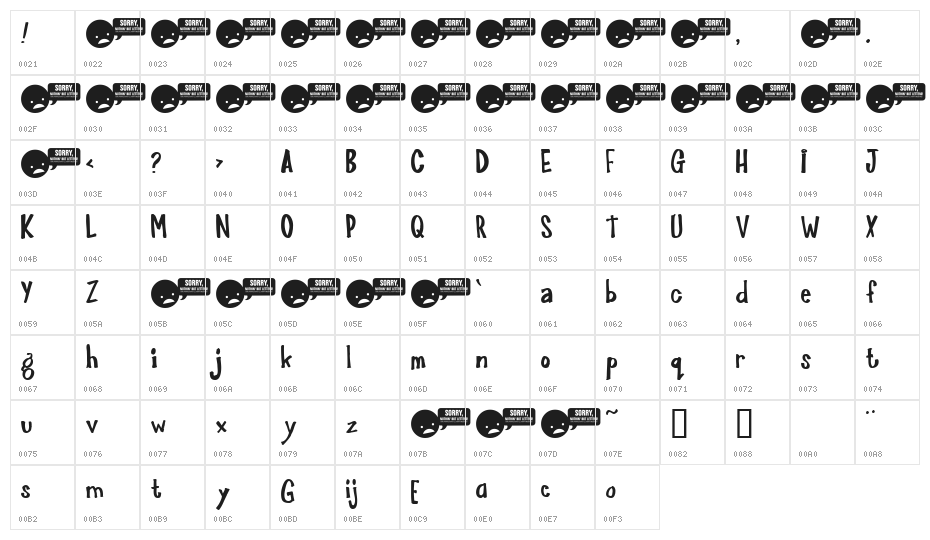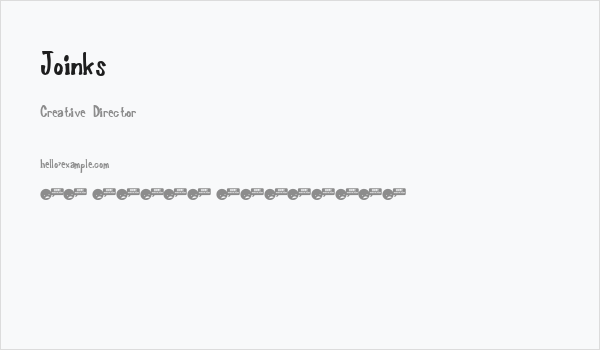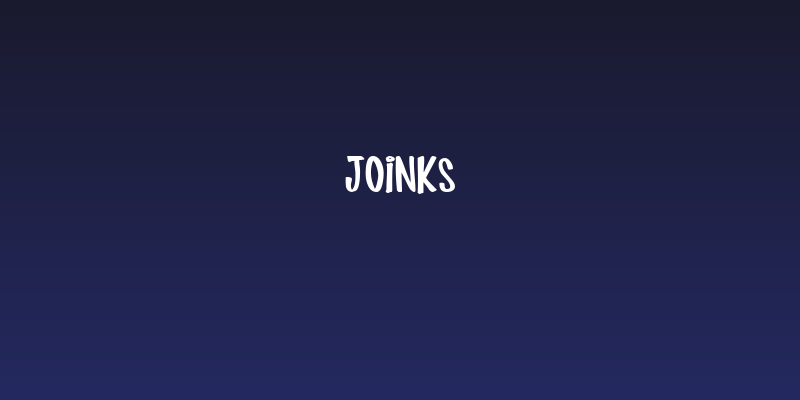
Joinks Font
Joinks Description
This font features a playful and whimsical style with a hand-drawn appearance. The letters are bold and slightly irregular, giving them a casual and friendly feel. The uppercase characters are tall and narrow, while the lowercase letters maintain a consistent height with rounded edges. The font includes a full set of uppercase and lowercase letters, numbers, and a selection of special characters. Its unique style makes it suitable for projects that require a touch of personality and creativity.
| Proposed Projects | Ideal for children's books, greeting cards, playful branding, and creative posters. |